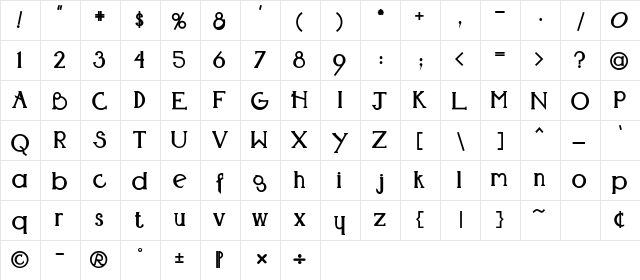
CamroseSSK Bold Font Preview
CamroseSSK Bold
Design Context for CamroseSSK Typeface
CamroseSSK takes a measured approach to typography — its balanced proportions and neutral character make it a reliable workhorse for both digital and print work. Its bold stroke weight gives it real presence on the page.